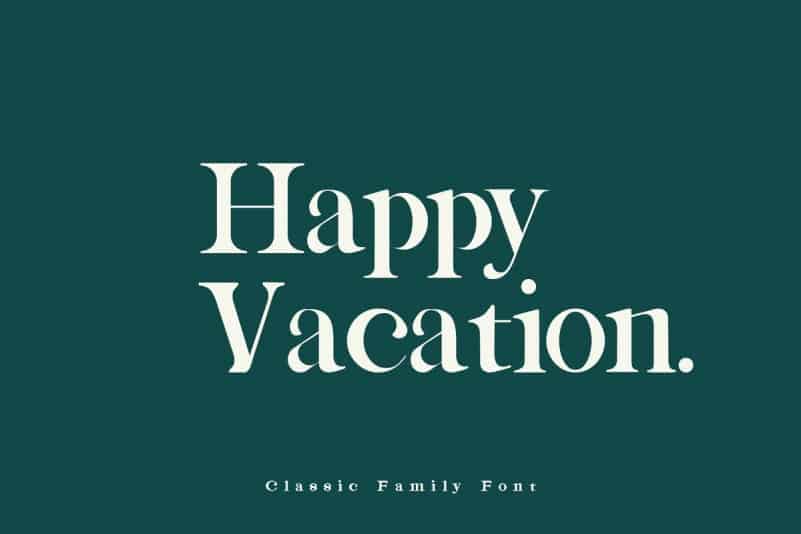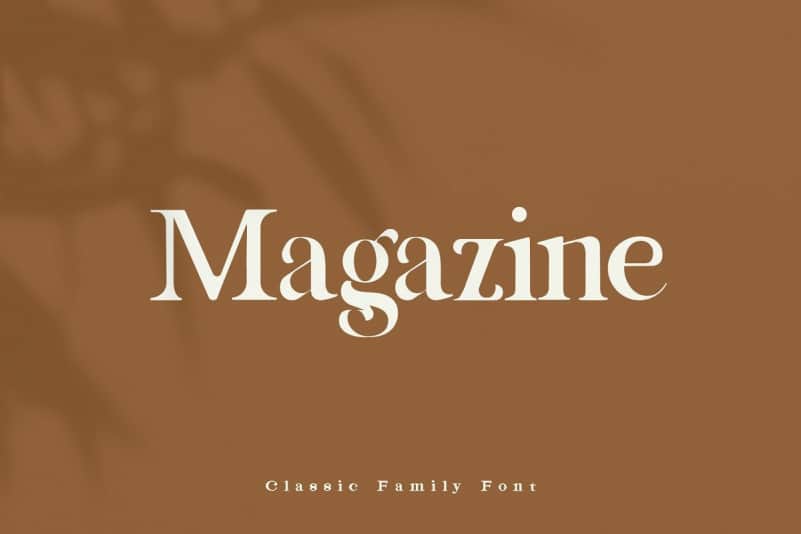
Magazine Serif Font
Magazine Serif Font is an art deco inspired with dramatically elongated serif. While being art deco inspired, it still maintains the clean and modern feel and will definitely adds elegance when used. It’s designed and shared by Nestype. This typeface is a bold and boldserif typeface, this typeface is perfect for writing short story, newspaper or magazine contents, or it can also be used for a number of designs such as invitation designs, baner designs, logos, branding packaging, book covers, wedding invitations.